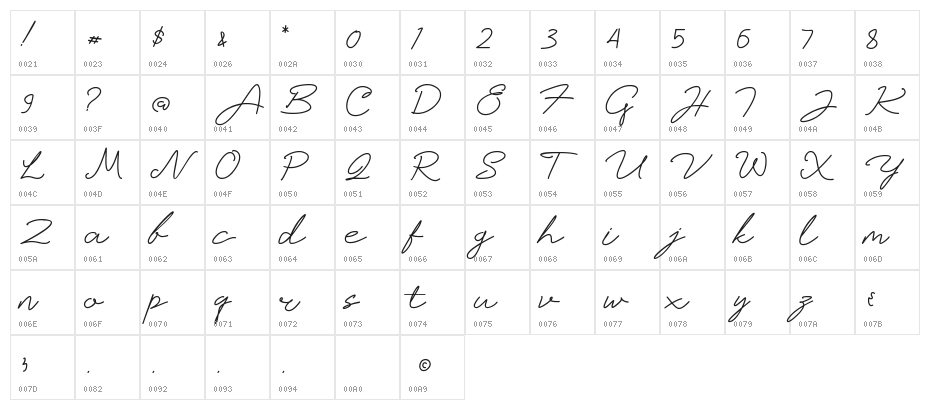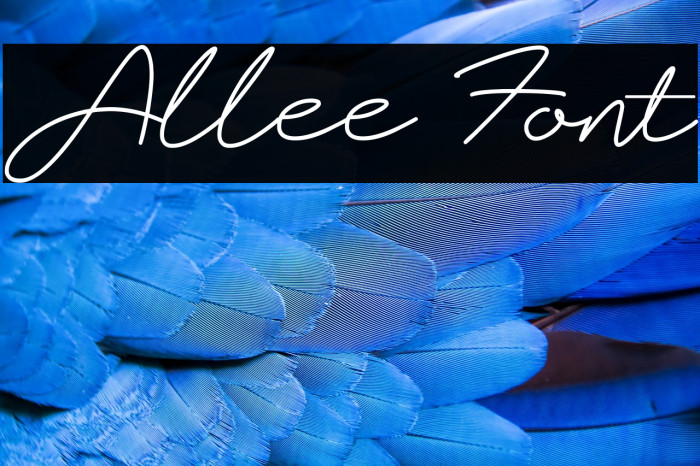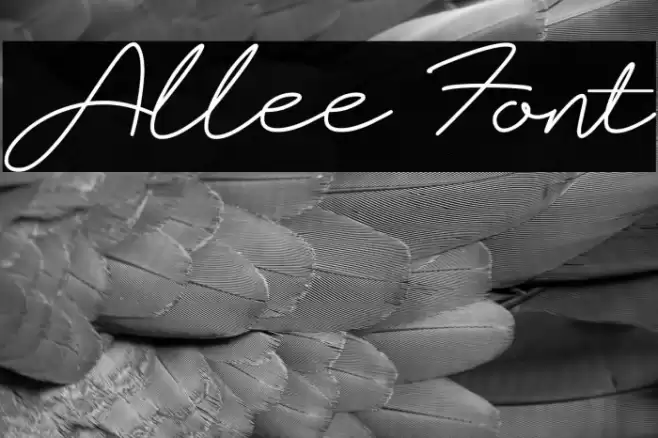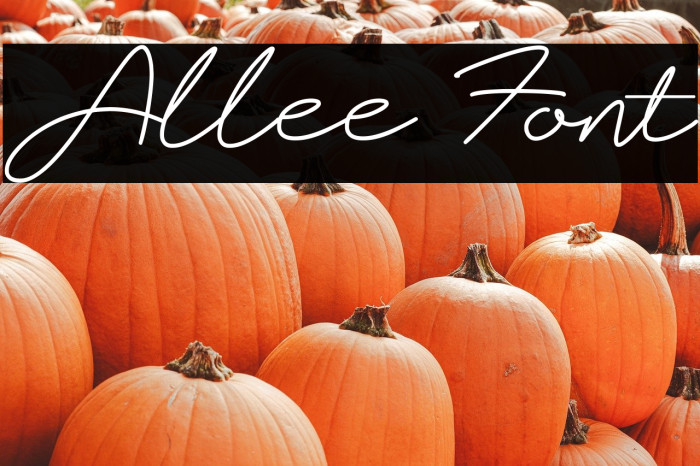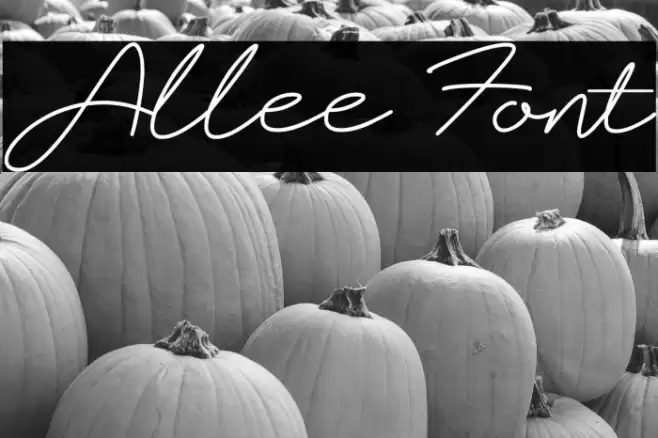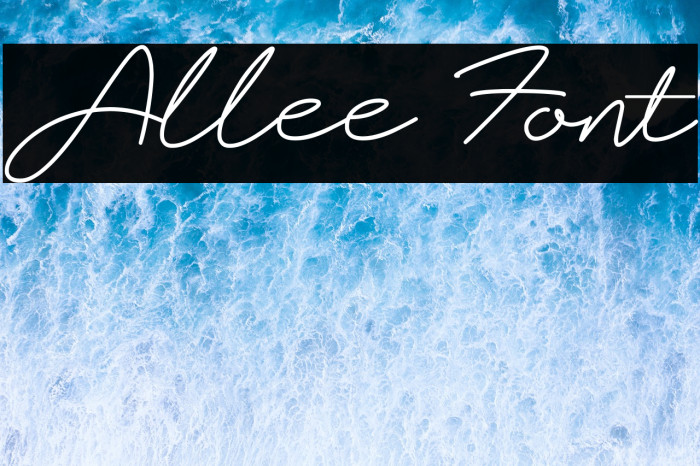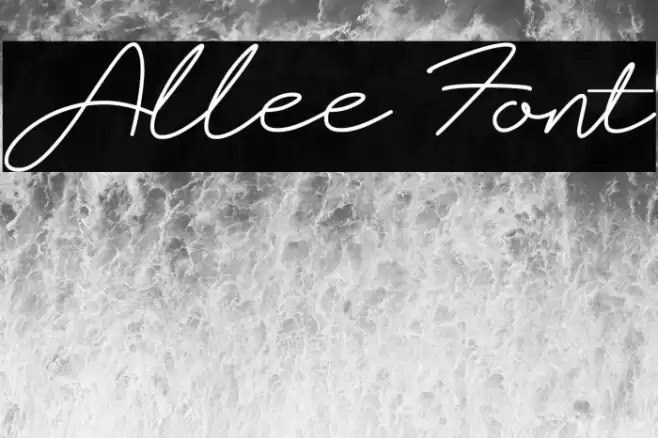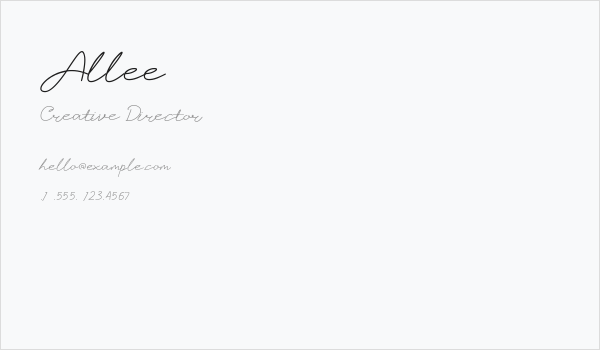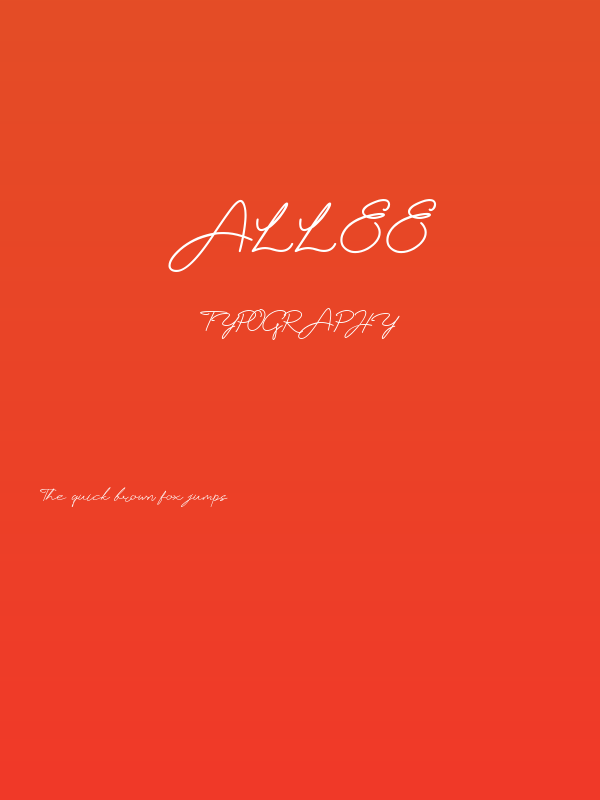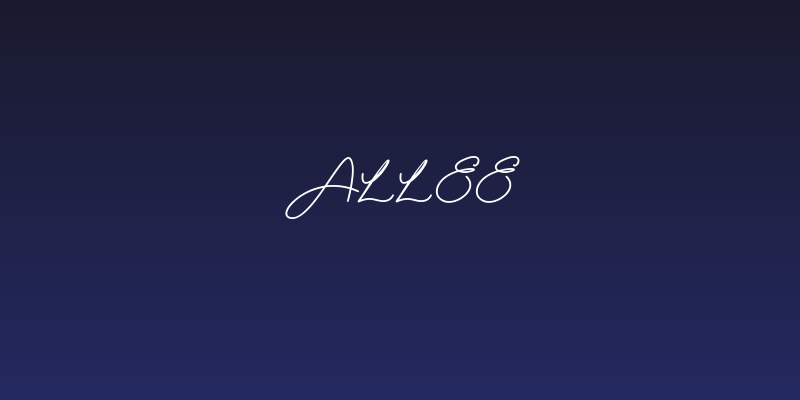
This font exudes a graceful and fluid style, characterized by its elegant cursive script. Each letter is connected with smooth, flowing lines, creating a sense of continuity and movement. The uppercase letters are slightly more elaborate, with gentle curves and loops that add a touch of sophistication. The lowercase letters maintain a consistent height, enhancing readability while preserving the font's artistic flair. Numbers and special characters are crafted with the same attention to detail, ensuring a cohesive look across all text elements. This font is perfect for projects that require a personal, handwritten touch, such as invitations, greeting cards, or branding materials.
| Overall Style | Elegant, Artistic |